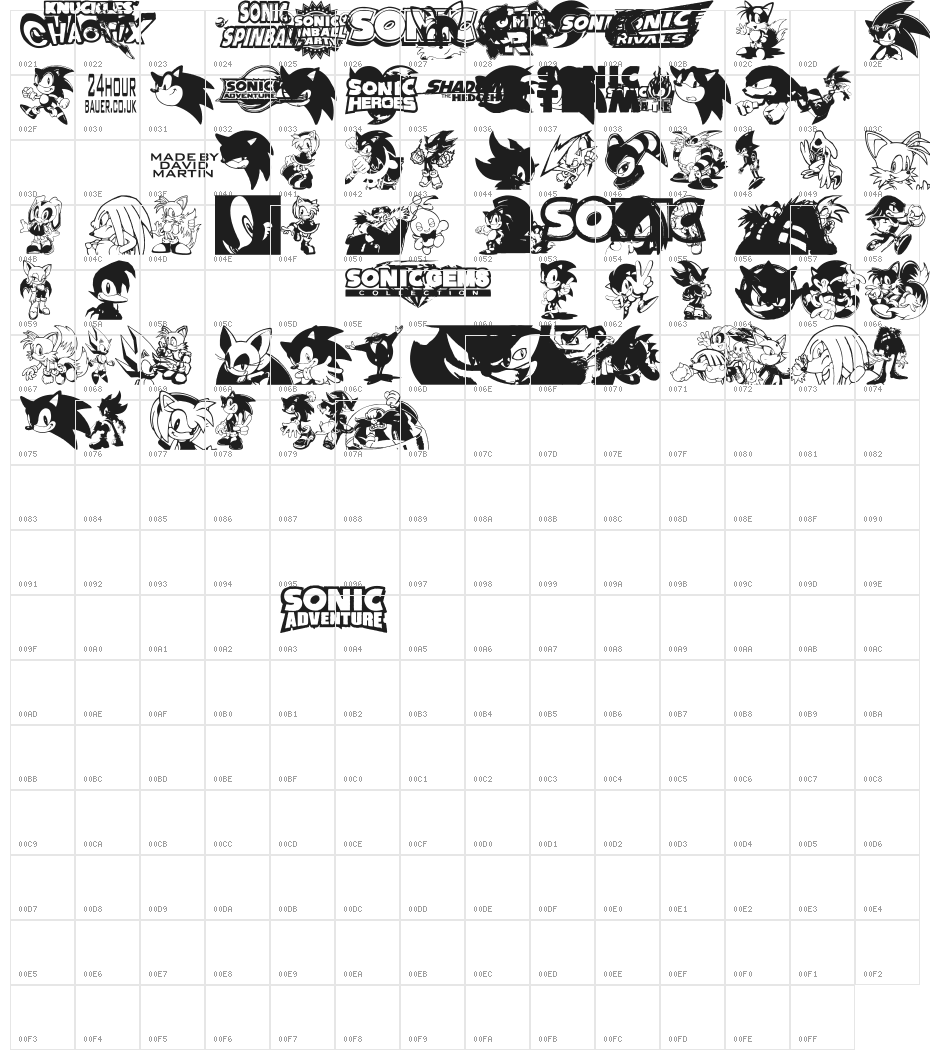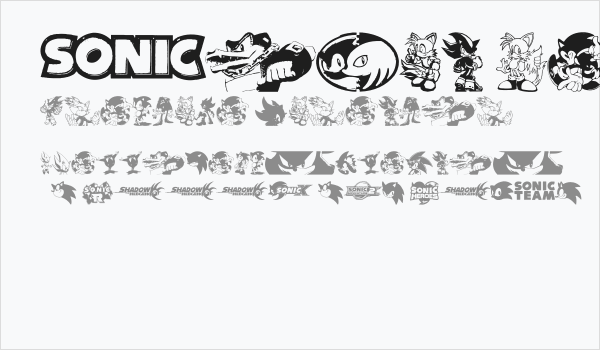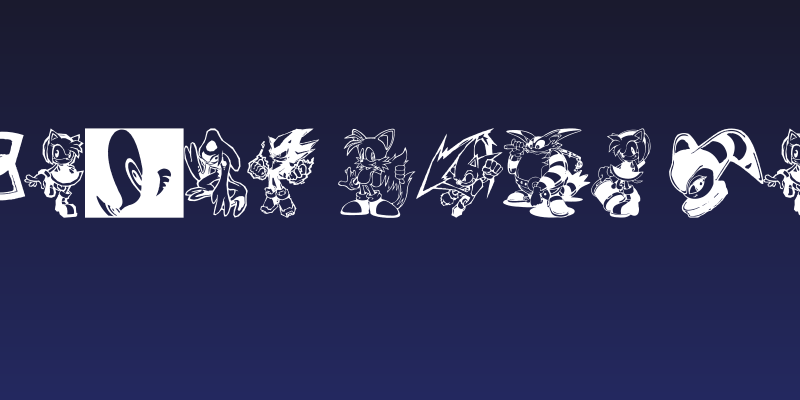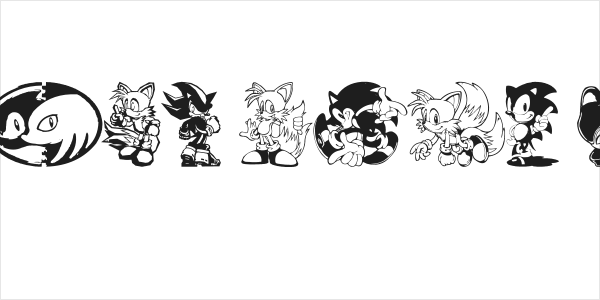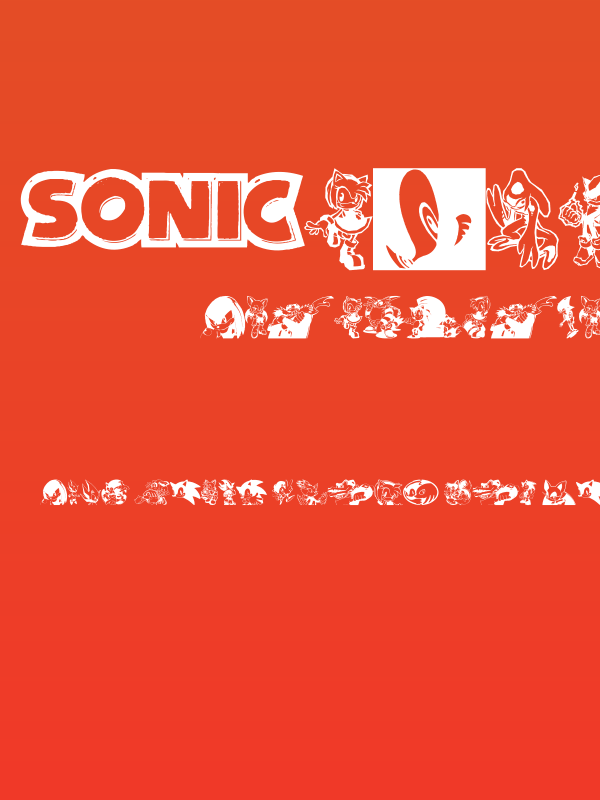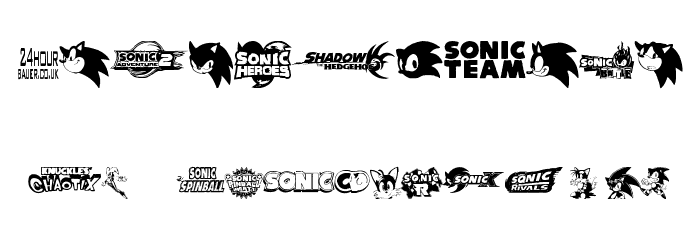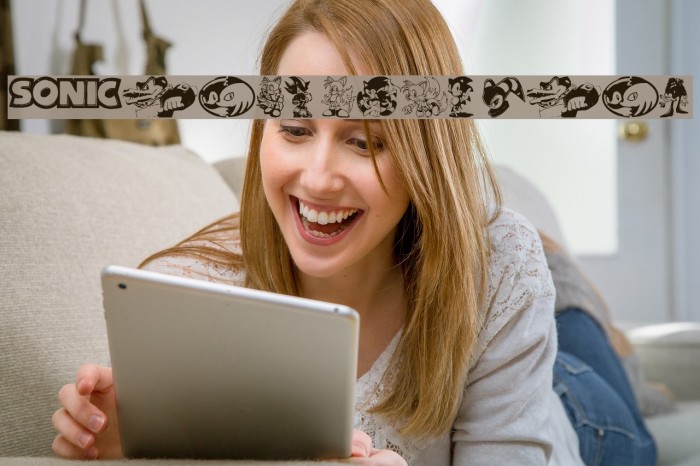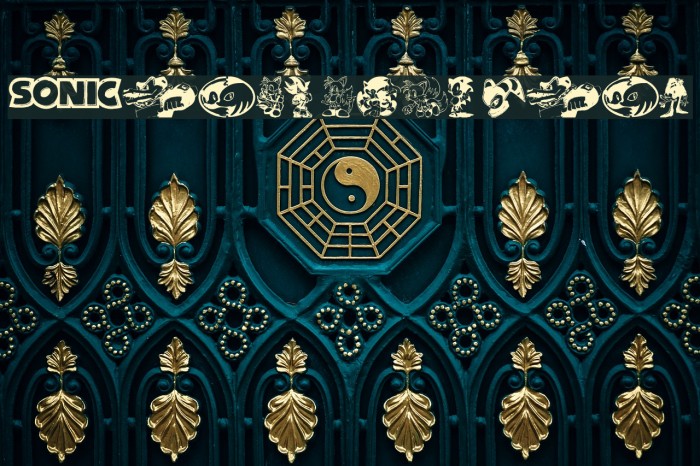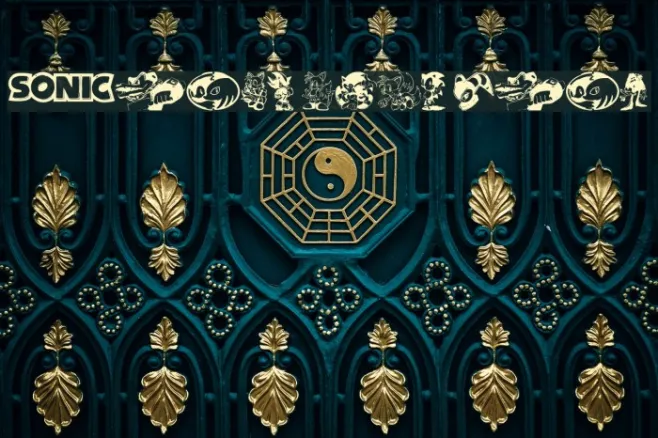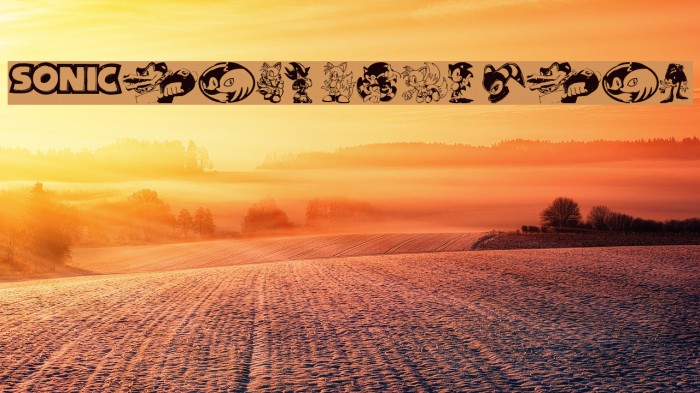
Sonic Mega Font Font
Sonic Mega Font Description
A decorative display font composed of stylized illustrations and logos from the Sonic the Hedgehog franchise, featuring characters, game titles, and iconic imagery in a bold, high-contrast, black-and-white style.
| Overall Style | Decorative, Thematic, Playful |
| Use Case | Logos, Posters, Headlines, Themed Graphics |
| Proposed Projects | Fan art, themed party invitations, event posters, video game fan sites, novelty merchandise, social media graphics. |